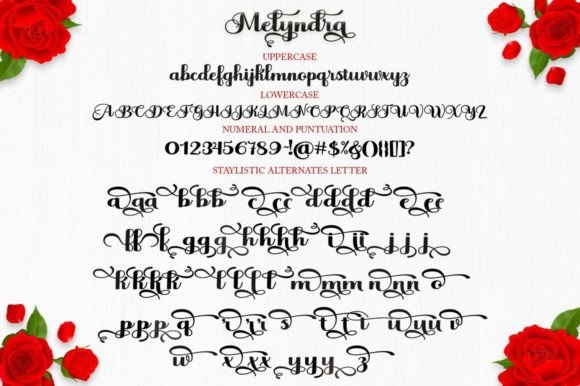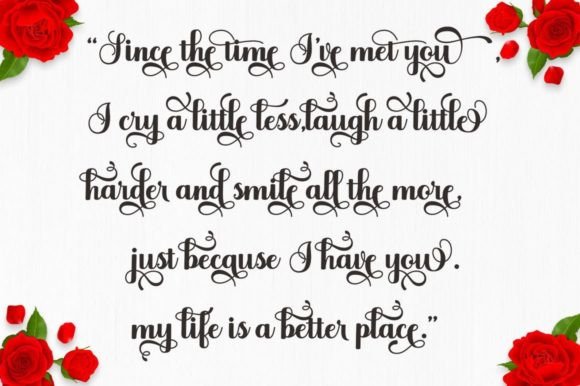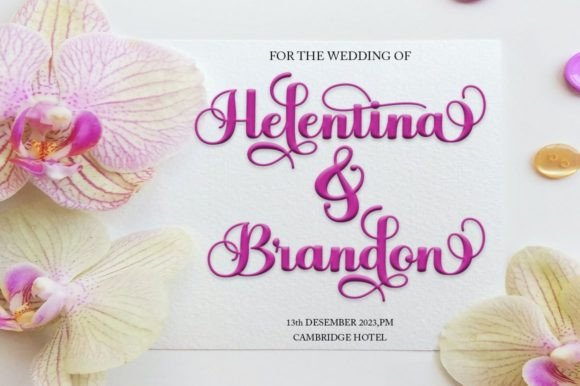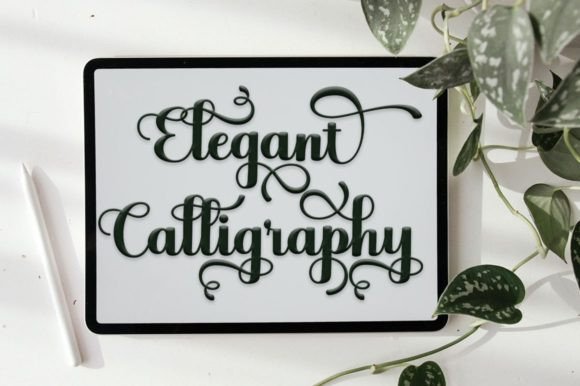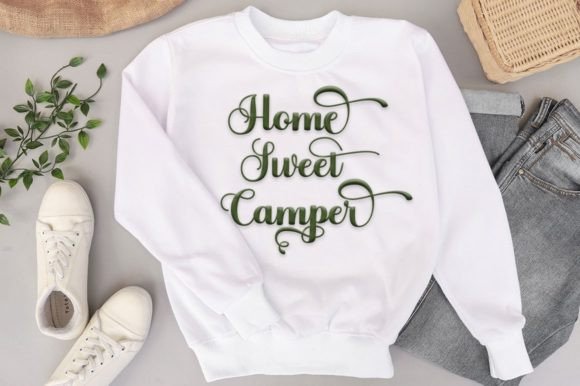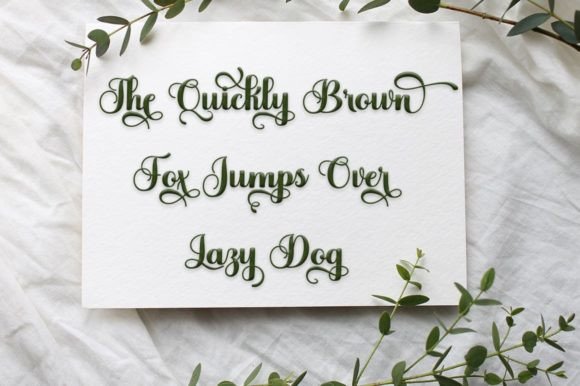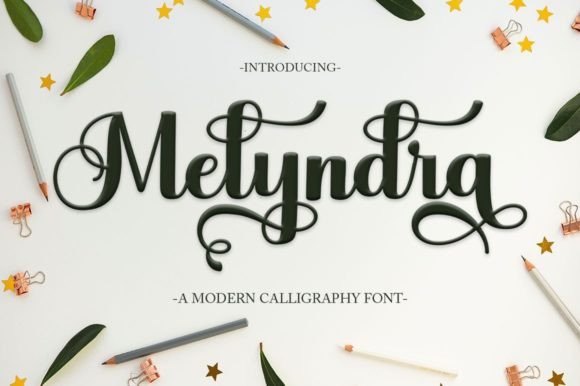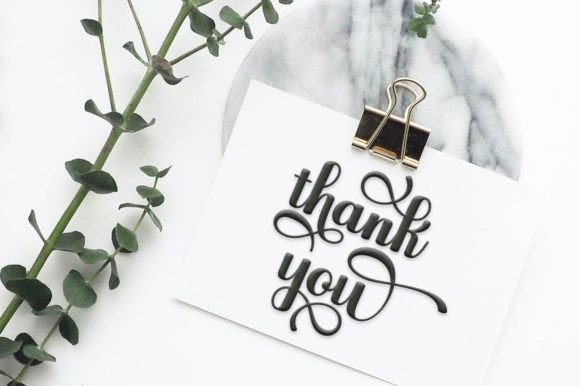
Melyndra Font
About Melyndra Font
“Melyndra is a contemporary and chic calligraphy font that exudes modernity and style. With its beautiful and balanced characters, this font is a versatile choice, suitable for a wide range of creative purposes. Whether you’re working on posters, wedding invitations, logos, product packaging, branding materials, titles, signs, labels, mugs, book covers, quotes, or any other design project, Melyndra adds a touch of elegance and sophistication.
What sets Melyndra apart is its ability to strike a harmonious balance between beauty and functionality. The font’s sleek and flowing characters lend a sense of grace to your text, creating a visual rhythm that captivates the eye. Its modern calligraphy style adds a touch of sophistication, making it perfect for projects that require a contemporary and stylish aesthetic.
Melyndra’s versatility shines through in its adaptability to various design contexts. Its clean and well-crafted characters make it suitable for both formal and casual applications. Whether you’re designing high-end wedding invitations or creating eye-catching social media posts, Melyndra seamlessly integrates into your creative vision, enhancing the overall visual appeal of your designs.
One of the standout features of Melyndra is its PUA encoding. This encoding provides easy access to all the glyphs and swashes, allowing you to customize your designs with unique characters and decorative elements effortlessly. Whether you’re adding elegant swashes to your branding materials or embellishing your wedding invitations with intricate details, Melyndra’s PUA encoding simplifies the creative process, enabling you to achieve a polished and professional look.
Incorporating Melyndra into your projects is like adding a touch of contemporary elegance. Its modern and stylish calligraphy enhances your designs, making them visually stunning and memorable. Whether you’re a professional designer or an enthusiast, Melyndra empowers you to infuse your projects with a sophisticated charm that resonates with viewers.
Melyndra is more than just a font; it’s a statement of modern sophistication. Its beautiful and balanced characters, combined with its accessibility through PUA encoding, make it an invaluable addition to any design toolkit. Embrace the contemporary allure of Melyndra and let your creativity flourish, crafting designs that are as stylish and chic as your vision allows.”